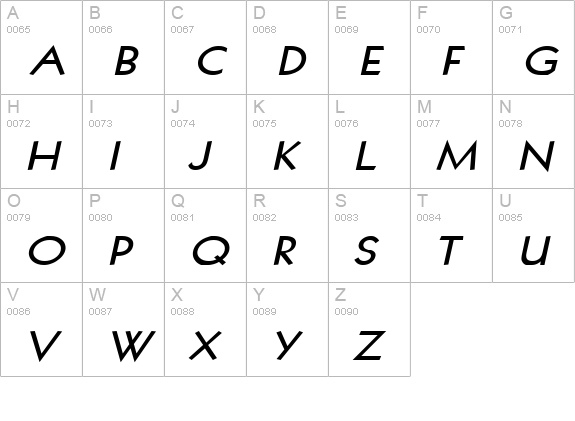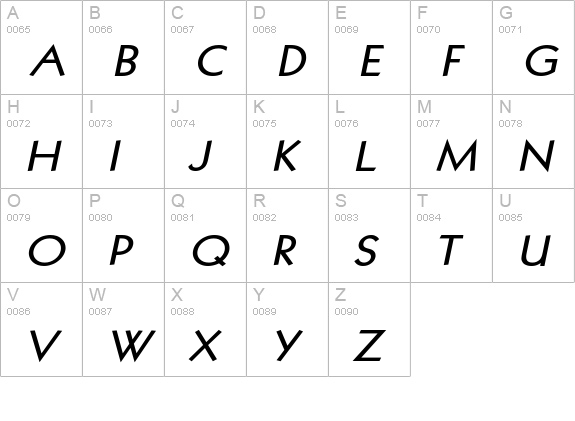
Geo 112 Wide Bold Italic is a strong, high-contrast, extended-width, italic variant in the Geo typeface family \xE2\x80\x94 well suited to headlines, attention-grabbing titles, and strong calls-to-action.
Introducing Geo 112 Wide Bold Italic font - a sleek and modern typeface that is sure to make a bold statement in your designs. This unique font combines wide letterforms with a bold weight and italic styling, creating a striking visual impact. Perfect for headlines, logos, and other display purposes, Geo 112 Wide Bold Italic font exudes confidence and sophistication. And the best part? It's completely free to download at FontsMarket.com! Don't miss out on the opportunity to enhance your projects with this eye-catching font that will surely stand out from the crowd. Download Geo 112 Wide Bold Italic font today and elevate your designs to the next level.